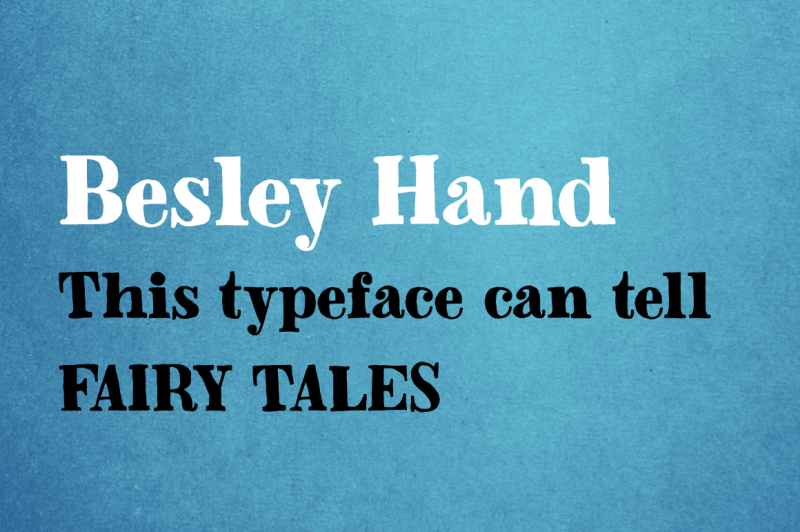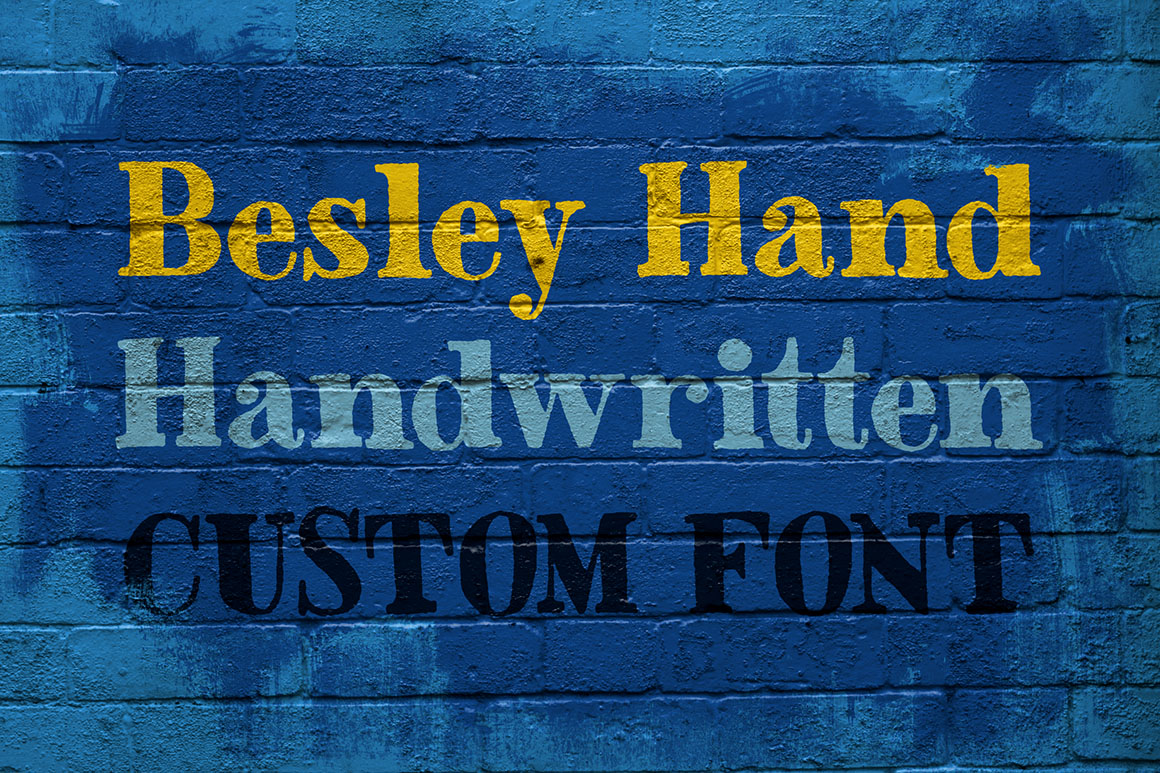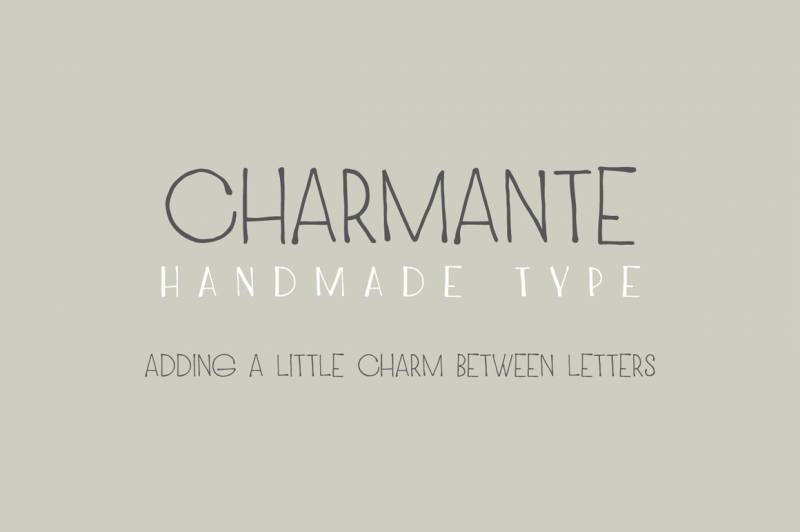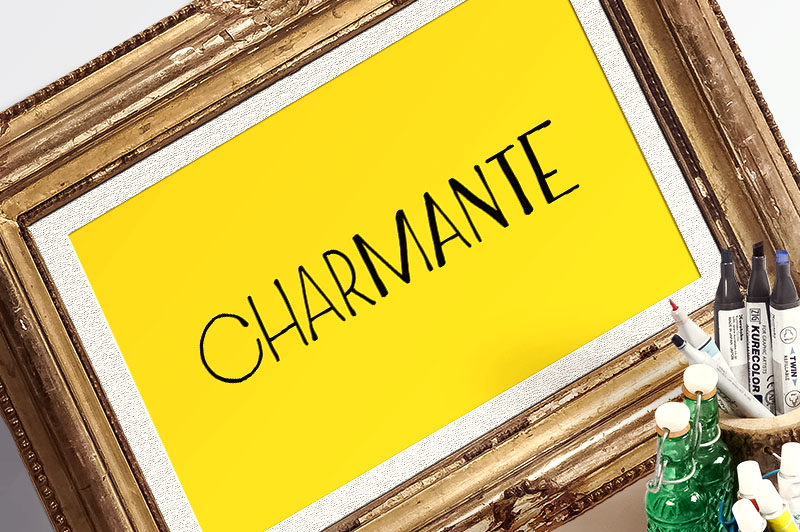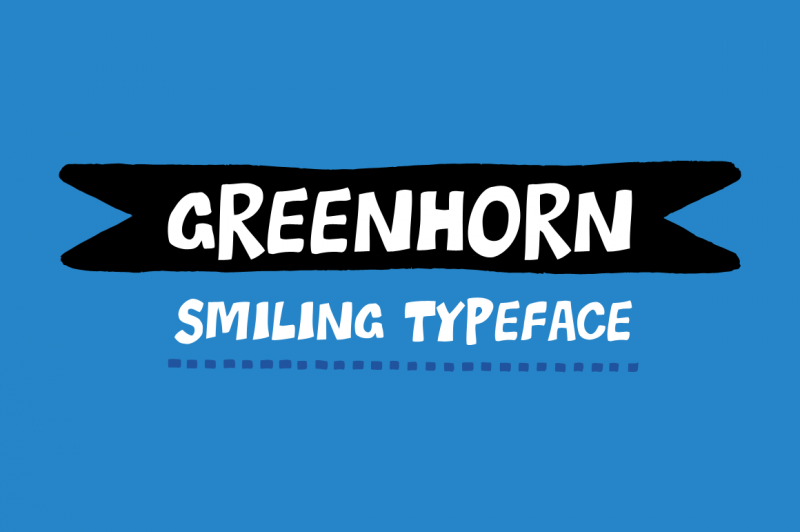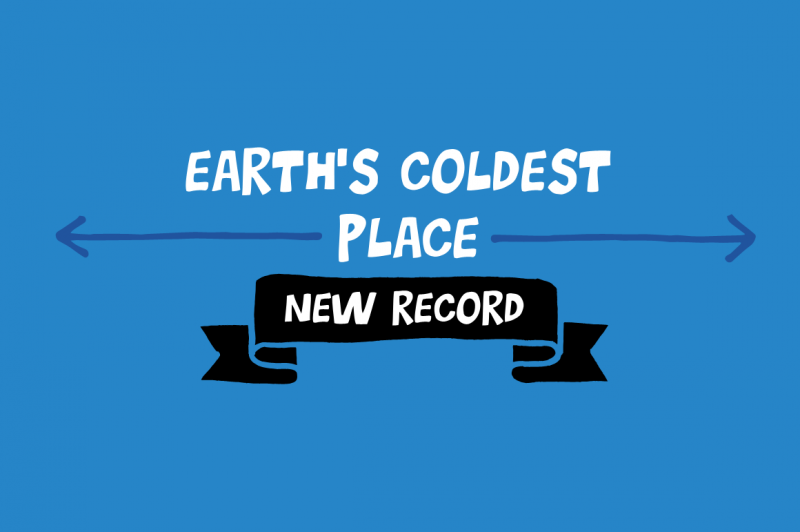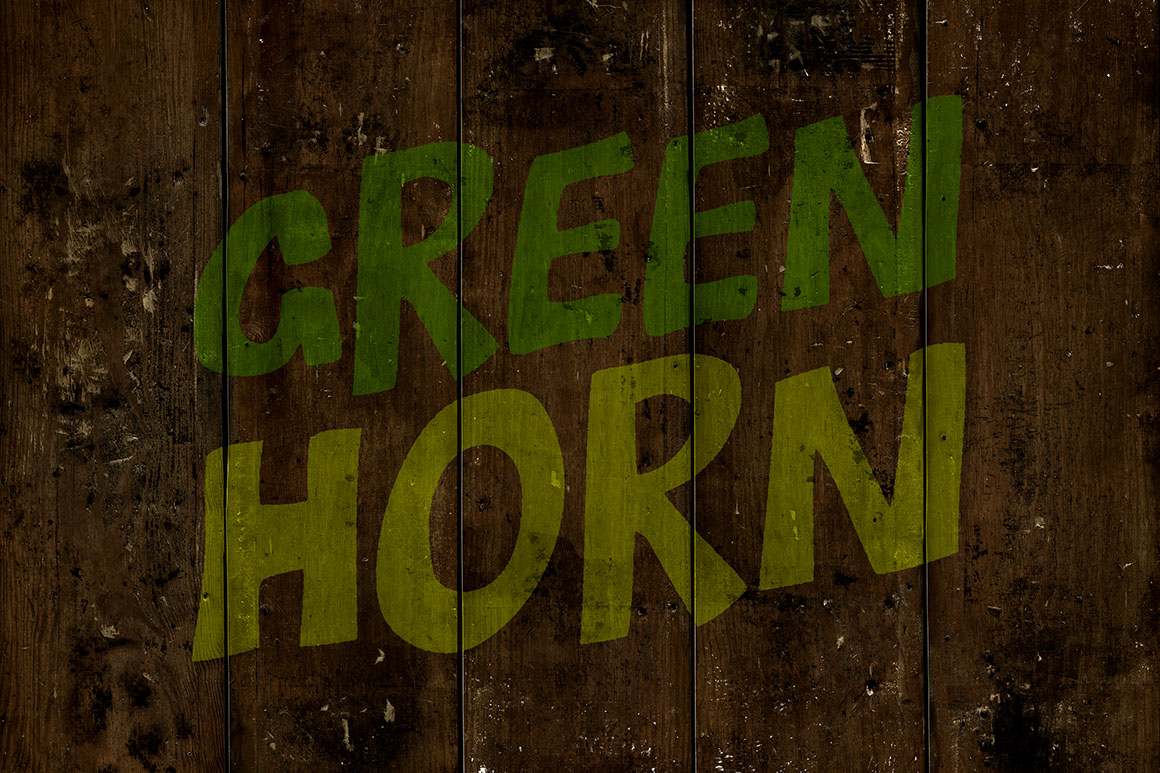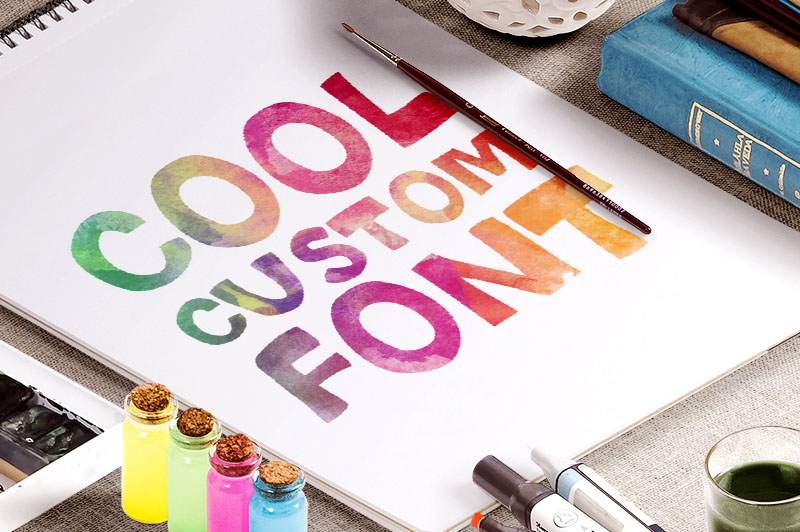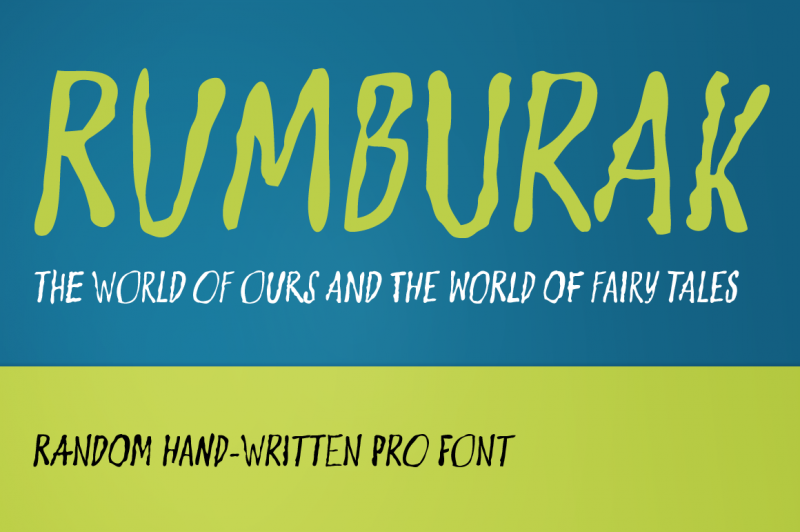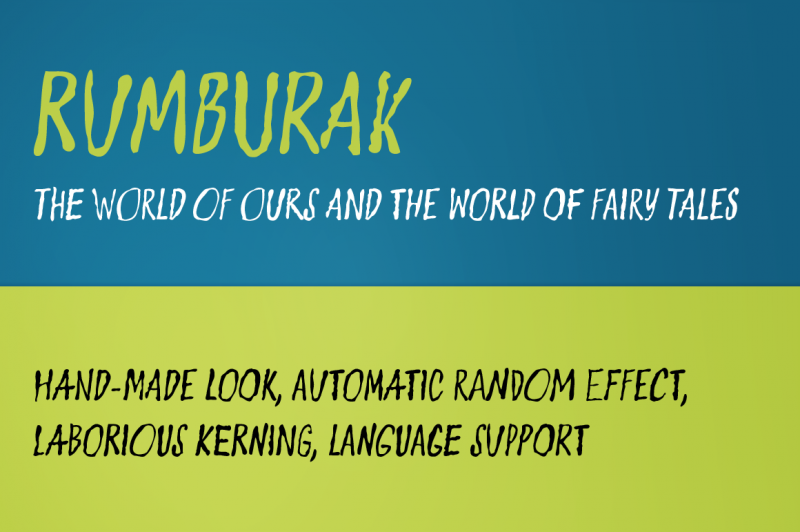
Cool Handwritten Fonts
If you like hand drawn look in typography design you should take a look at this deal. You can find 4 unique hand drawn custom fonts in this bundle.
1. Greenhorn Font by Juraj Chrastina
Greenhorn is a hand-traced comic type for headlines. Funky, irregular and smiling. The first inspiration comes from the unique lettering of a classic czech cartoonist.
2. Besley Hand Font by Juraj Chrastina
A funny childish handwritten font, with a spirit. This typeface can tell fairy tales.
3. Charmante Font Family by Juraj Chrastina
Let’s add a little charm between letters with this sweet and straightforward hand-drawn typeface. Charmante is ideal for save-the-dates, wedding announcements, invitation cards, greeting cards, gift tags, cafe or restaurant menus and for any other lovely and charming design. The Charmante Family contains 2 fonts: Charmante Regular & Charmante Bold.
4. Rumburak Font by Juraj Chrastina
This handmade-looking, playful type is inspired by the titles of a few old Czech movies for children. With its irregularity and numerous alternates, Rumburak simulates live handwriting. When the font is used in OpenType-savvy applications, the 4 variants of glyphs are automatically alternated to achieve a random-like effect. The spacing and kerning were carefully fine-tuned by Igino Marini and the kerning table contains kerning pairs for use with the random feature turned on or off. The font includes multi-language support. Enjoy!